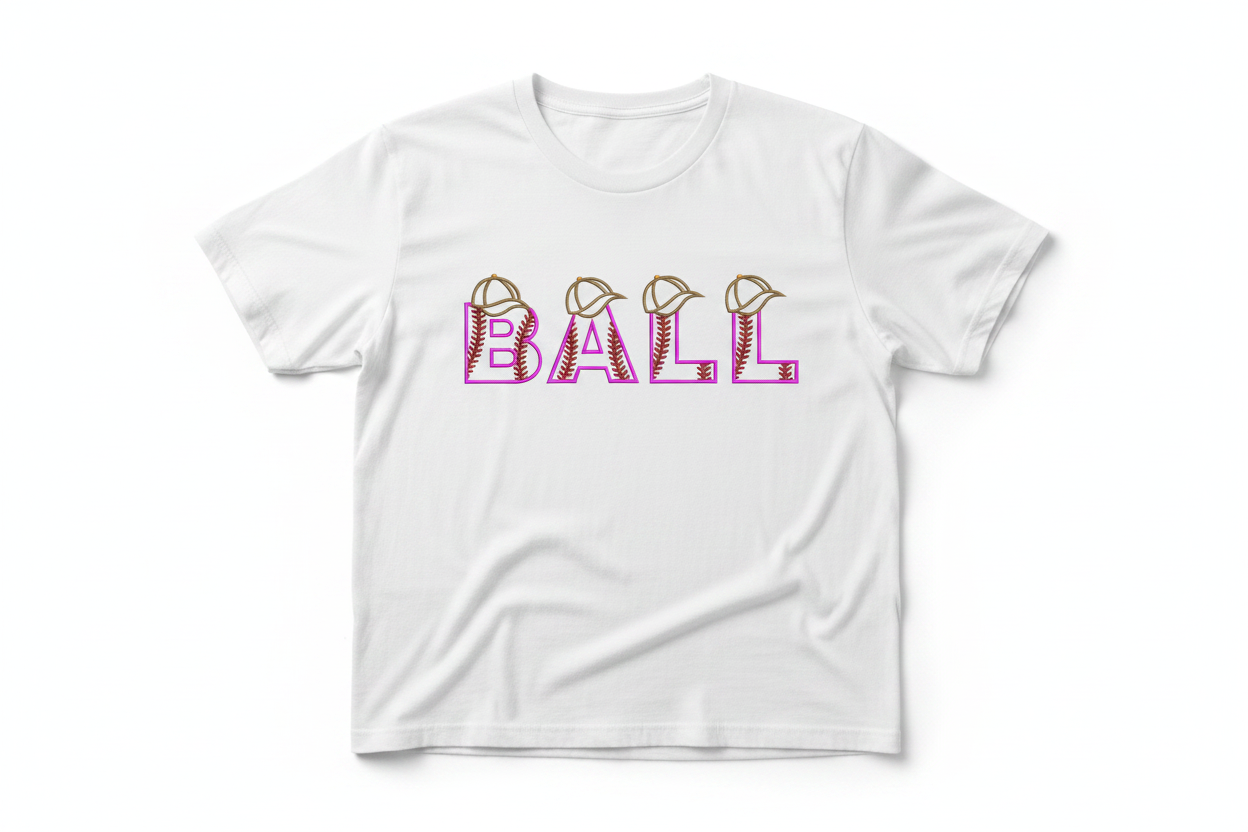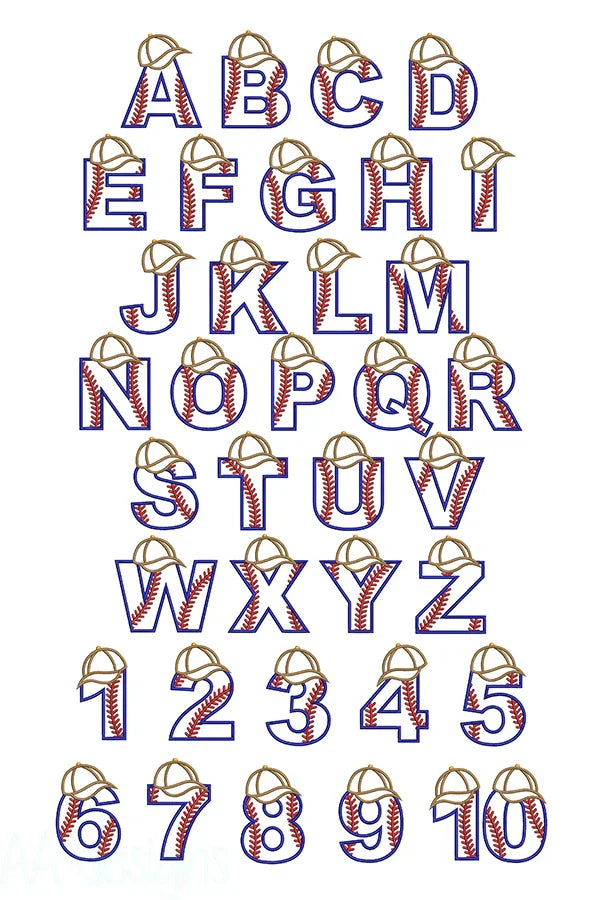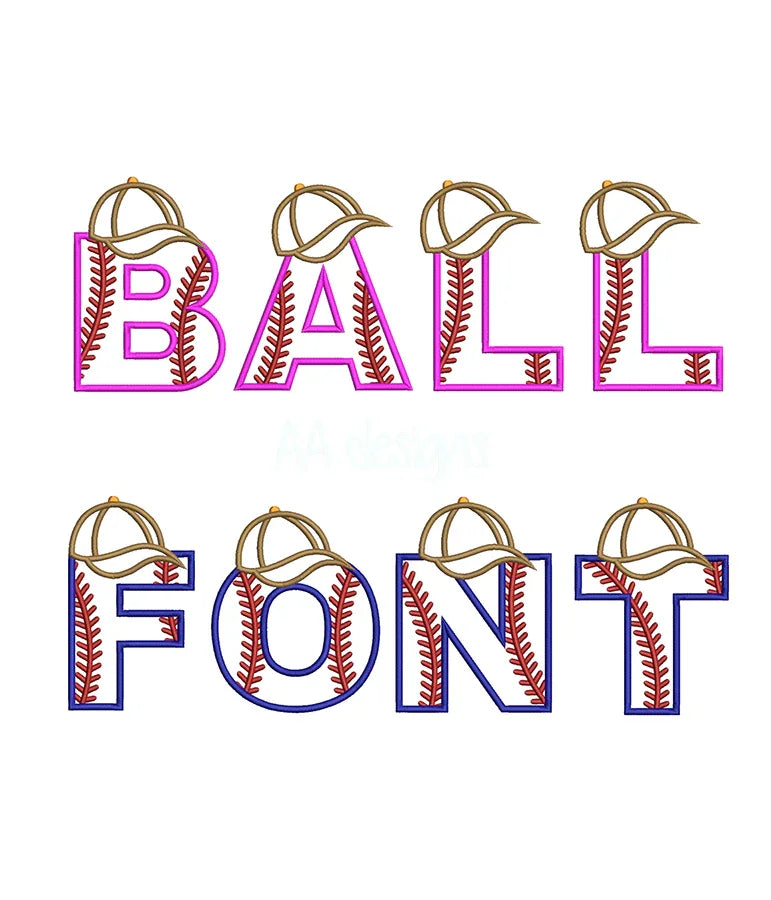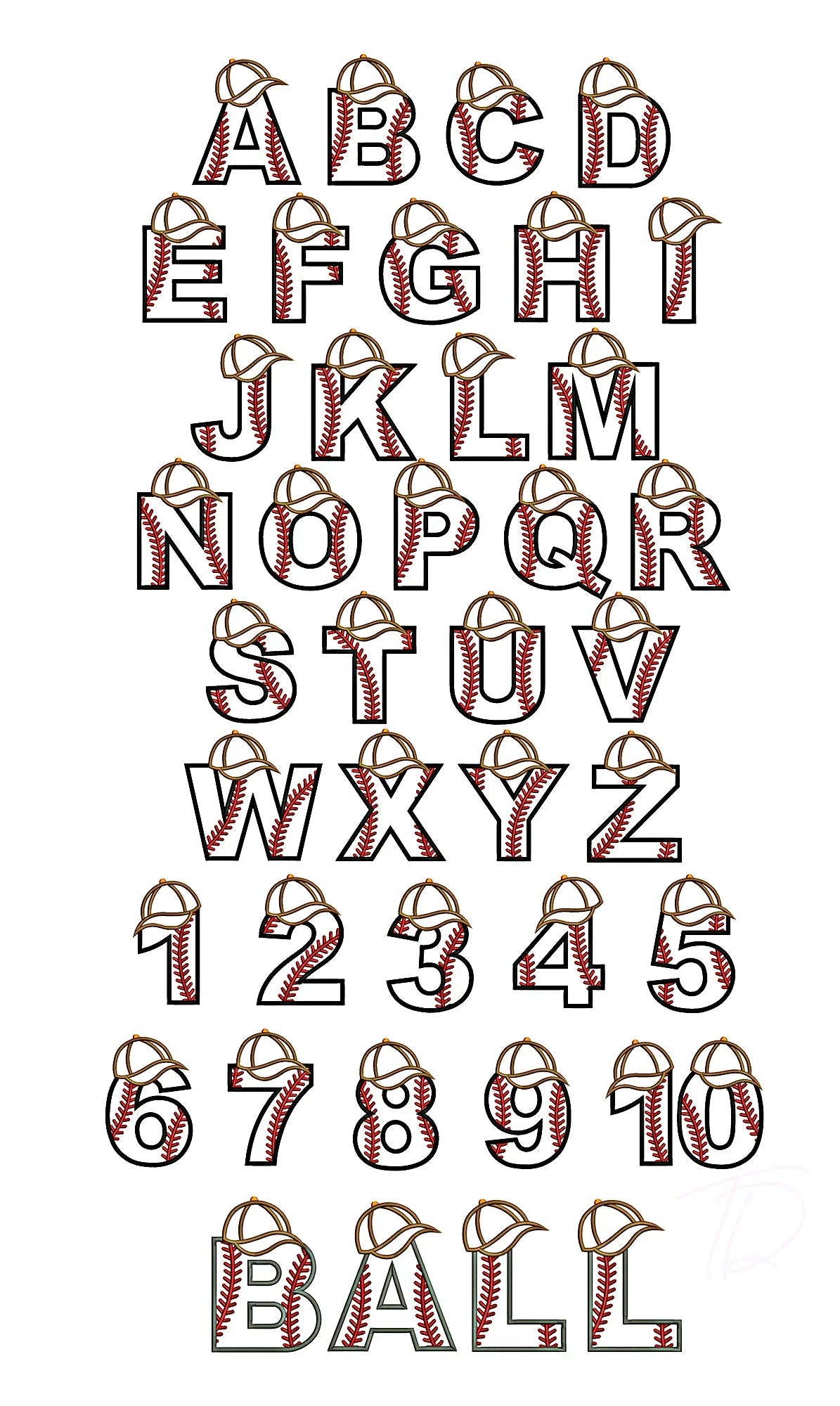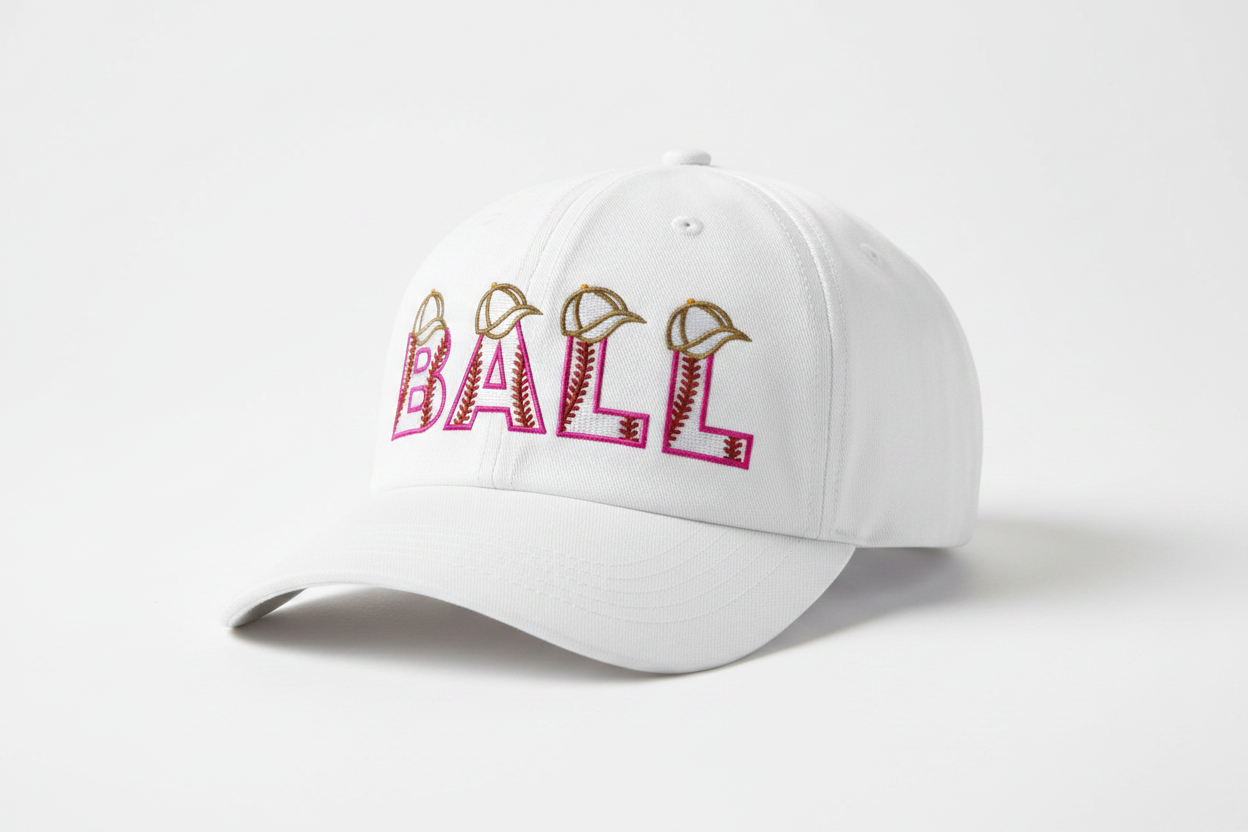
Baseball Applique Embroidery Font | BX PES DST — Varsity & Sports Style
Get that authentic varsity look with our Baseball Applique Embroidery Font. Bold, sporty letters digitized in classic applique style — the same technique used on varsity jackets, team jerseys, and professional sportswear for decades.
- ✅ True applique technique — dimensional, tactile finish that stands out on any garment
- ✅ 3 large sizes included — 5", 7", and 8" uppercase alphabet (A–Z)
Perfect For
- ⚾ Baseball caps, hats, and visors
- 🏆 Team jerseys and sports uniforms
- 🎓 Varsity jackets and letterman jackets
- 👕 Hoodies, sweatshirts, and t-shirts
- 🎒 Bags, backpacks, and tote bags
- 🎁 Personalized gifts and school spirit wear